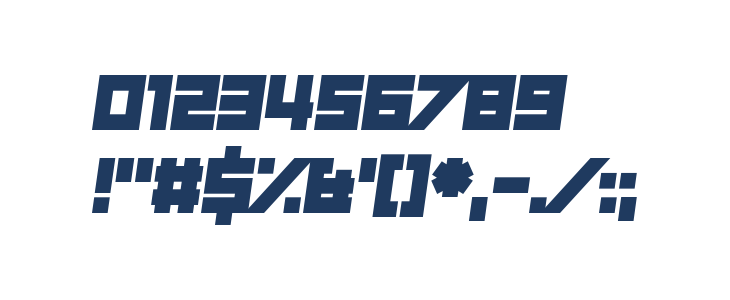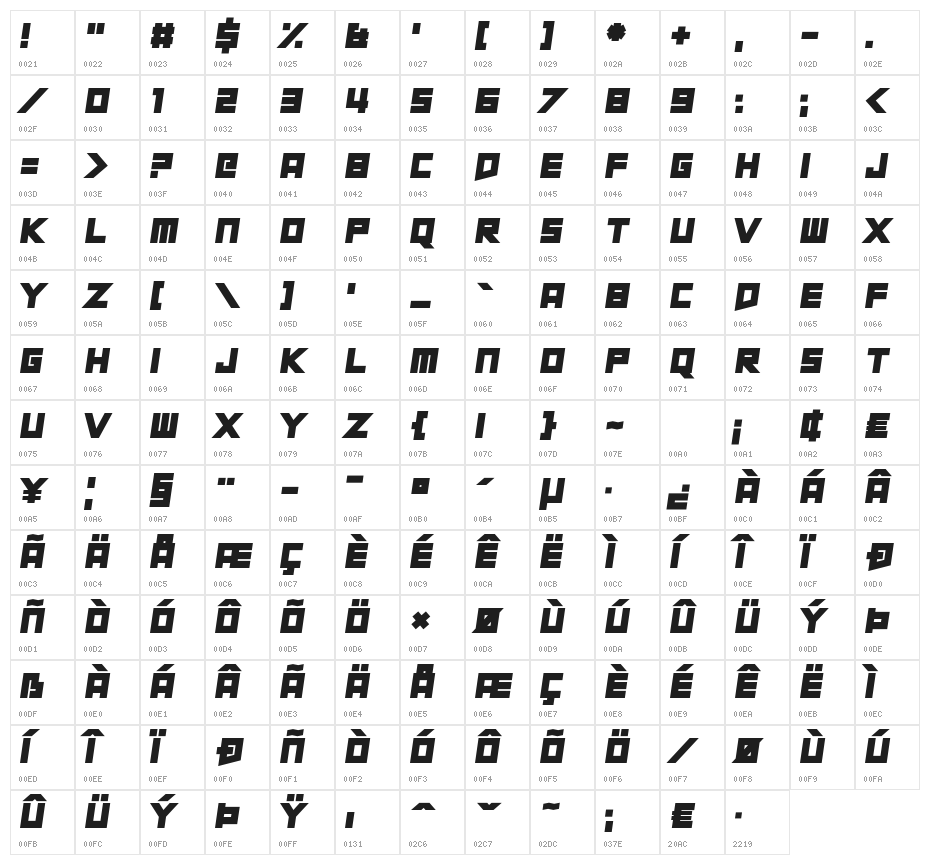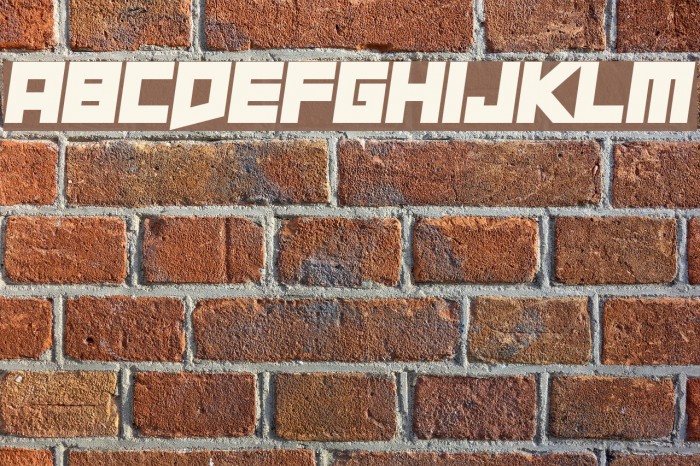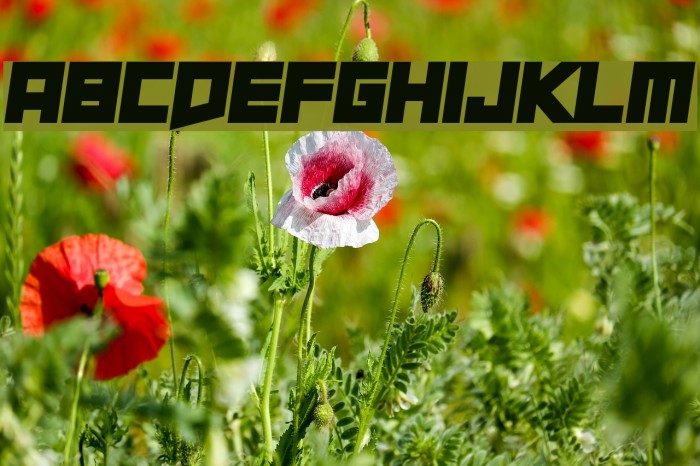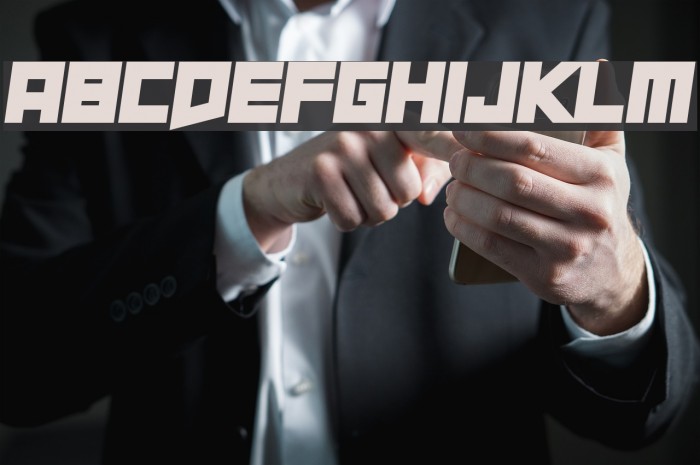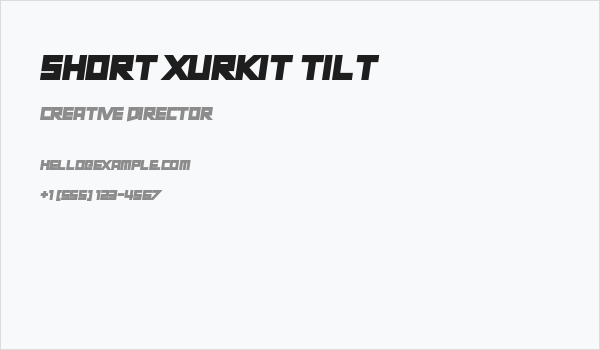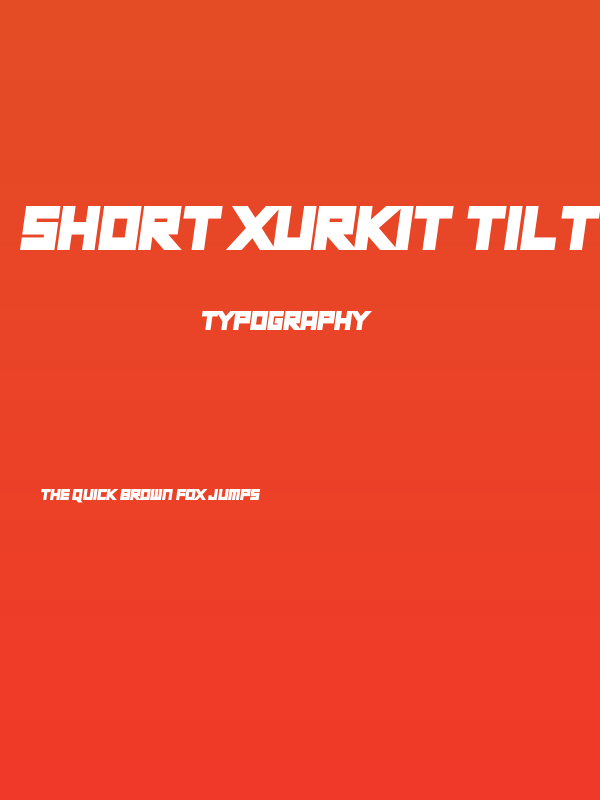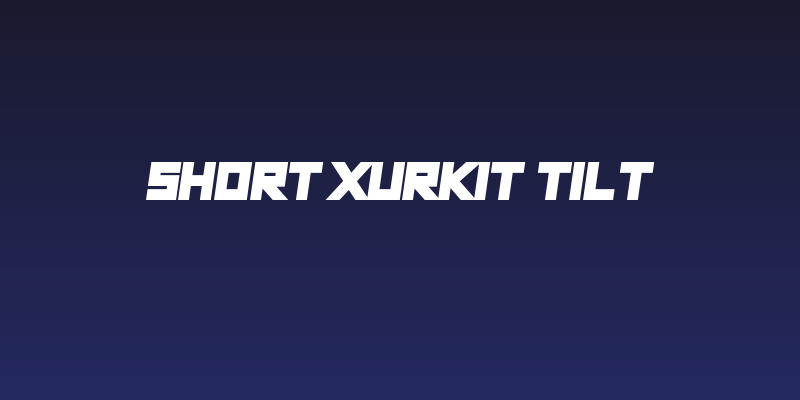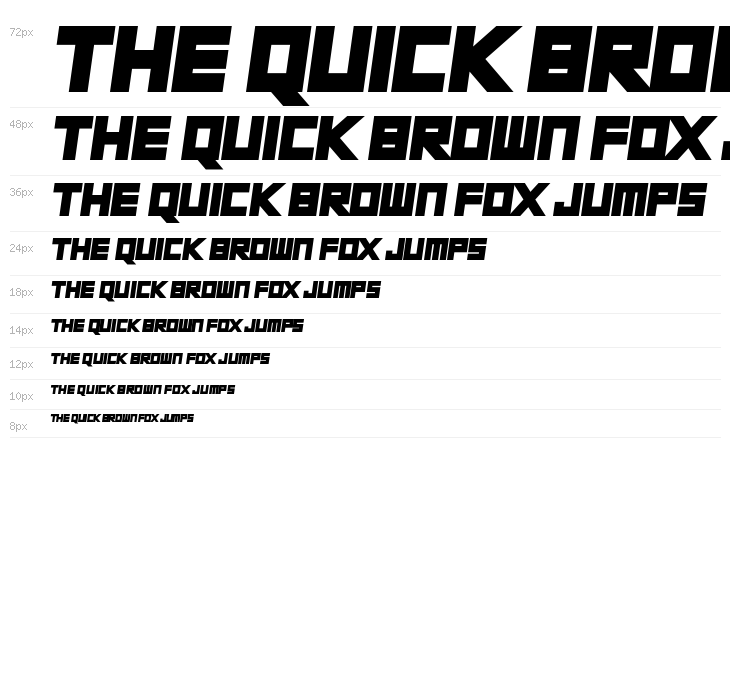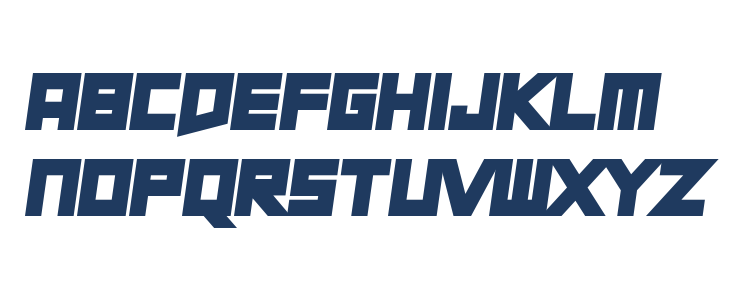
Short Xurkit Tilt Font
Short Xurkit Tilt Description
This font features a bold, angular design with a futuristic and dynamic appearance. The characters are sharply cut with a distinct slant, giving them a sense of motion and energy. The uppercase and lowercase letters maintain a consistent style, with strong geometric shapes and a uniform thickness throughout. The numbers and special characters follow the same design principles, ensuring a cohesive look across all glyphs. This font is ideal for projects that require a modern and edgy aesthetic, such as technology branding, sports team logos, or video game titles.
| Use Case | Logos, Headlines |
| Proposed Projects | Ideal for technology branding, sports logos, and video game titles. |